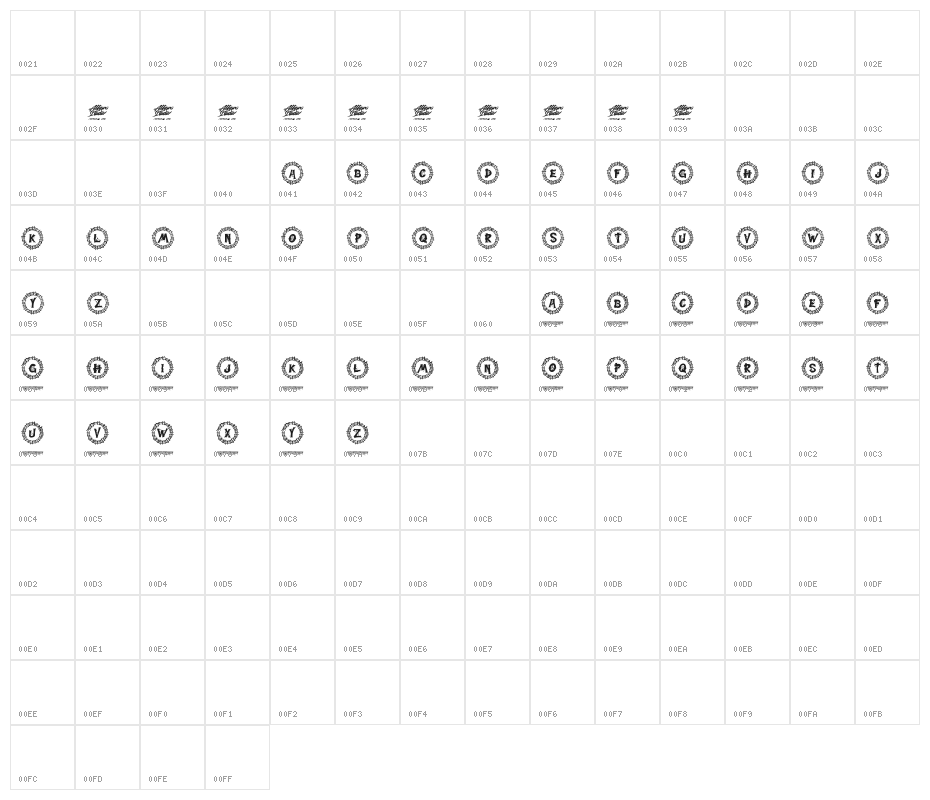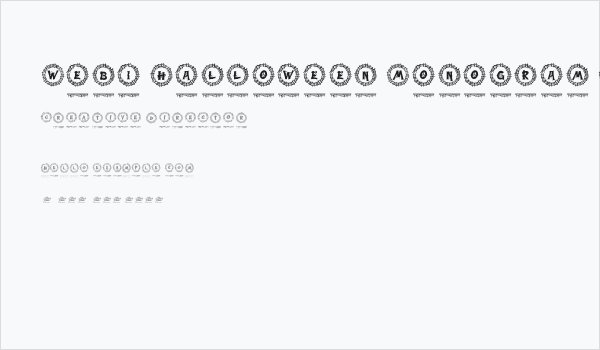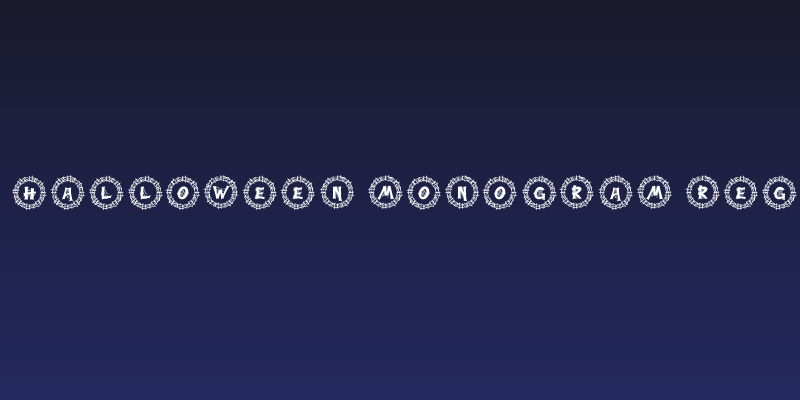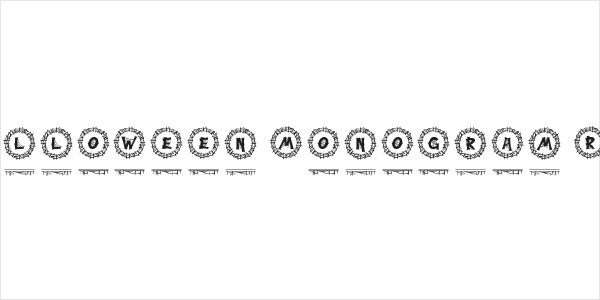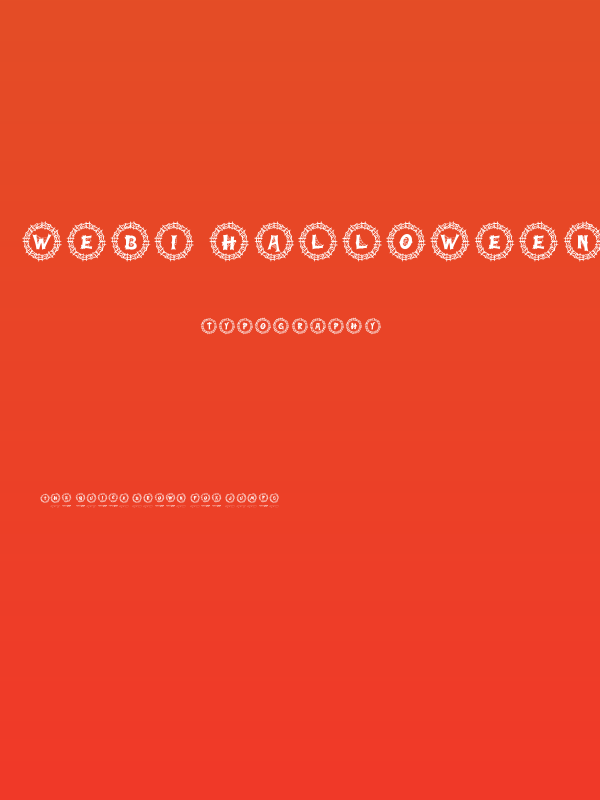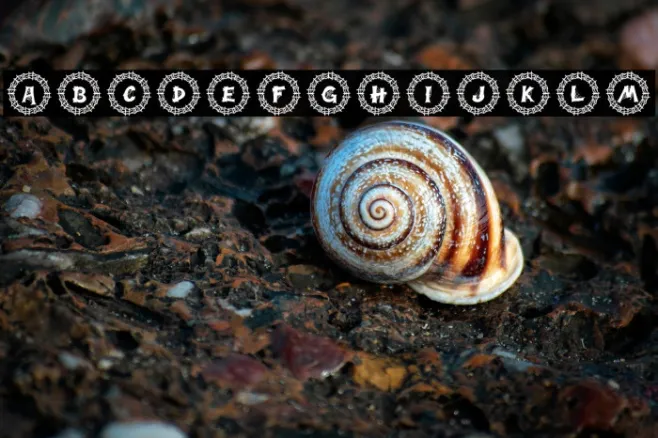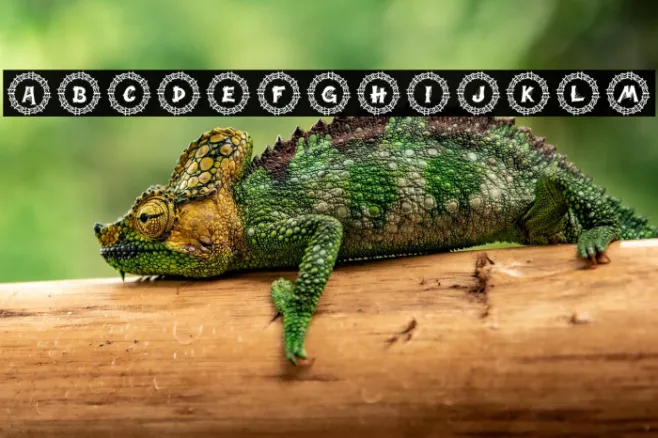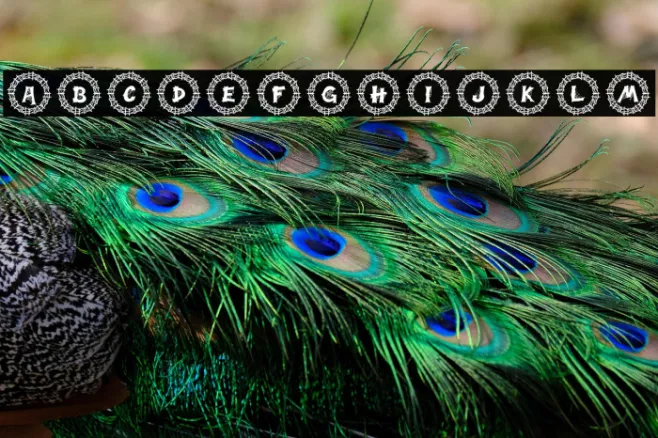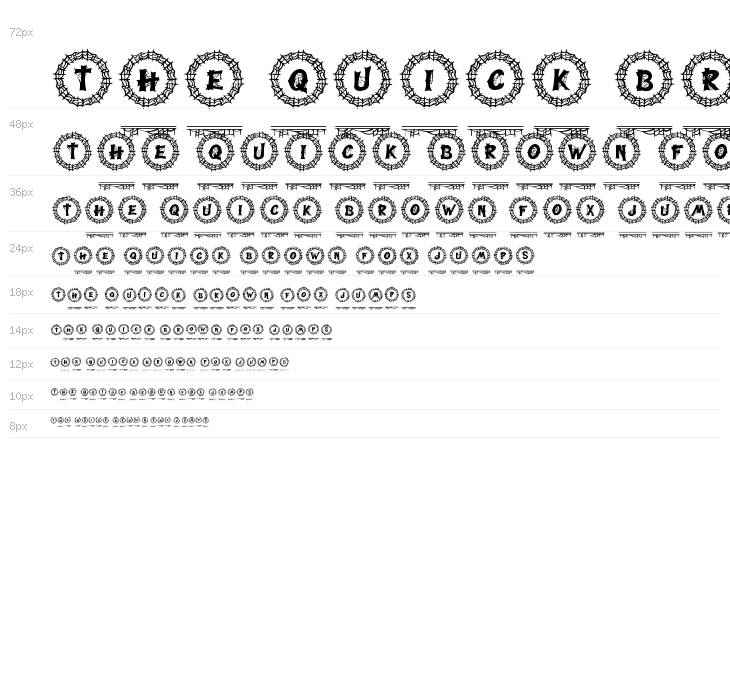
Webi Halloween Monogram Regular Font
Webi Halloween Monogram Regular Description
This font features a unique and decorative style, perfect for festive occasions. Each letter is encased in a circular wreath-like design, adding an ornamental touch that is both playful and elegant. The uppercase letters are bold and prominent, making them ideal for standout monograms or initials. The intricate detailing around each character gives it a handcrafted feel, reminiscent of holiday decorations. This font is particularly suited for Halloween themes, with its whimsical and slightly gothic appearance, making it a great choice for seasonal projects.
| Use Case | Headlines, Logos, Decorative Text |
| Proposed Projects | Perfect for Halloween invitations, festive greeting cards, decorative monograms, and themed event signage. |